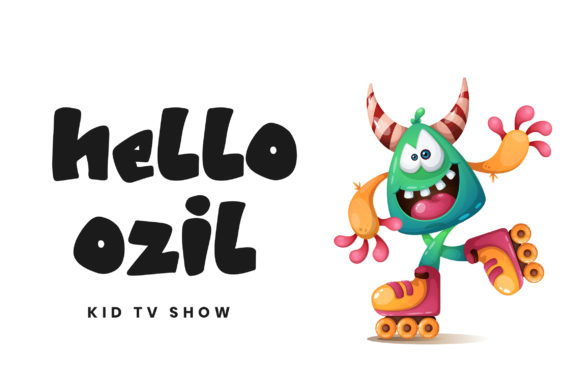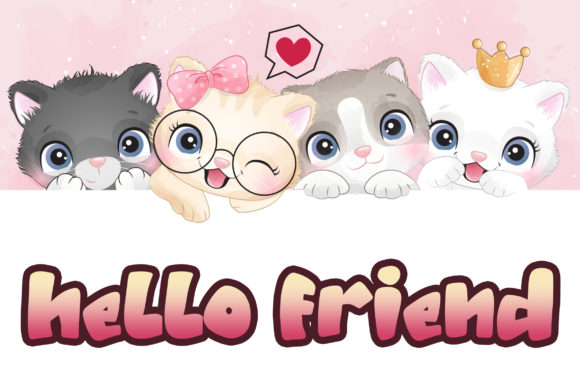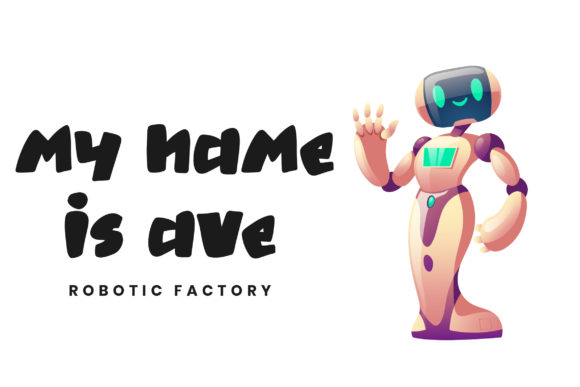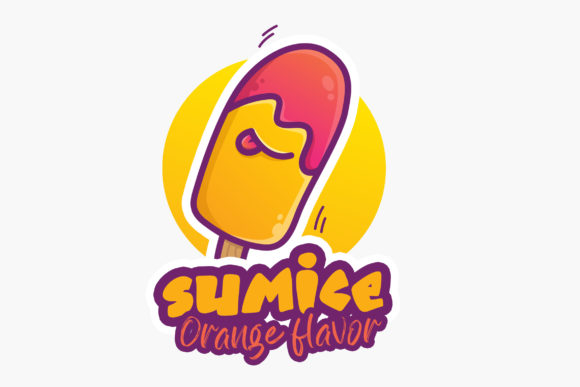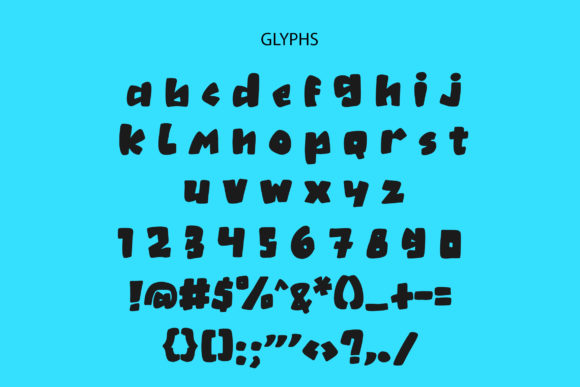
Get Ready to Go Beyond the Ordinary with Bowel Font
Have you ever been working on a project, and suddenly, that spark of creativity hits you? Maybe it’s a bold color combination, a quirky illustration, or a font that perfectly captures the essence of your design. For me, that moment happened when I discovered the extraordinary Bowel Font.
This kid-friendly display font is a game-changer for designers looking to add some fun and personality to their projects. Whether you’re creating a logo for a children’s clothing brand, designing a book cover for a young adult novel, or crafting social media posts for a family-friendly business, Bowel Font is the perfect tool to elevate your design. Its unique style and playful vibe make it a valuable asset for any designer looking to stand out in a crowded market.
Bowel Font Key Features
- Font Family: Bowel Font is a unique, sans-serif typeface designed to resemble a bowel or intestine. It is available in several styles, including regular and bold.
- Character Set: Bowel Font supports a wide range of languages, including Latin, Cyrillic, and Greek alphabets.
- Unique Characteristics: The most distinctive feature of Bowel Font is its unusual shape, which is inspired by the human digestive system. This unique design makes it stand out from other sans-serif fonts and adds a touch of whimsy to any design project.
Bowel Font Review
Overall, I’m torn about the Bowel Font. On one hand, I appreciate the quirky uniqueness it brings to a design. ✨ The font’s irregular, hand-drawn feel adds a touch of personality to any text, making it stand out in a crowd. It’s perfect for branding, marketing materials, or even editorial content that wants to convey a more relaxed, approachable tone.
- The Bowel Font’s irregularities work in its favor, making it easy to distinguish from more common, sans-serif fonts.
- It’s great for headings, as the unique shape of the letters adds visual interest and draws the reader’s eye.
- The font is versatile and works well in digital and print applications.
However, there are some limitations to consider. ⚠️ The font’s irregularities can sometimes make it difficult to read, especially in large blocks of text. Additionally, the font’s uniqueness can be a double-edged sword – while it adds personality, it may not be suitable for more formal or professional applications.
Overall, I’d recommend the Bowel Font for designers who want to add a touch of whimsy to their projects. Just be mindful of the font’s limitations and use it judiciously to avoid overwhelming the reader.
Tips for Getting the Most Out of Bowel Font
For best results, use Bowel Font in bold or italic styles to add emphasis to your text. You can also pair it with other fonts to create a unique visual effect.
Bowel Font is commonly used in humorous or ironic designs, such as memes or parody artwork. It can also be used in children’s educational materials or games to add a playful touch.